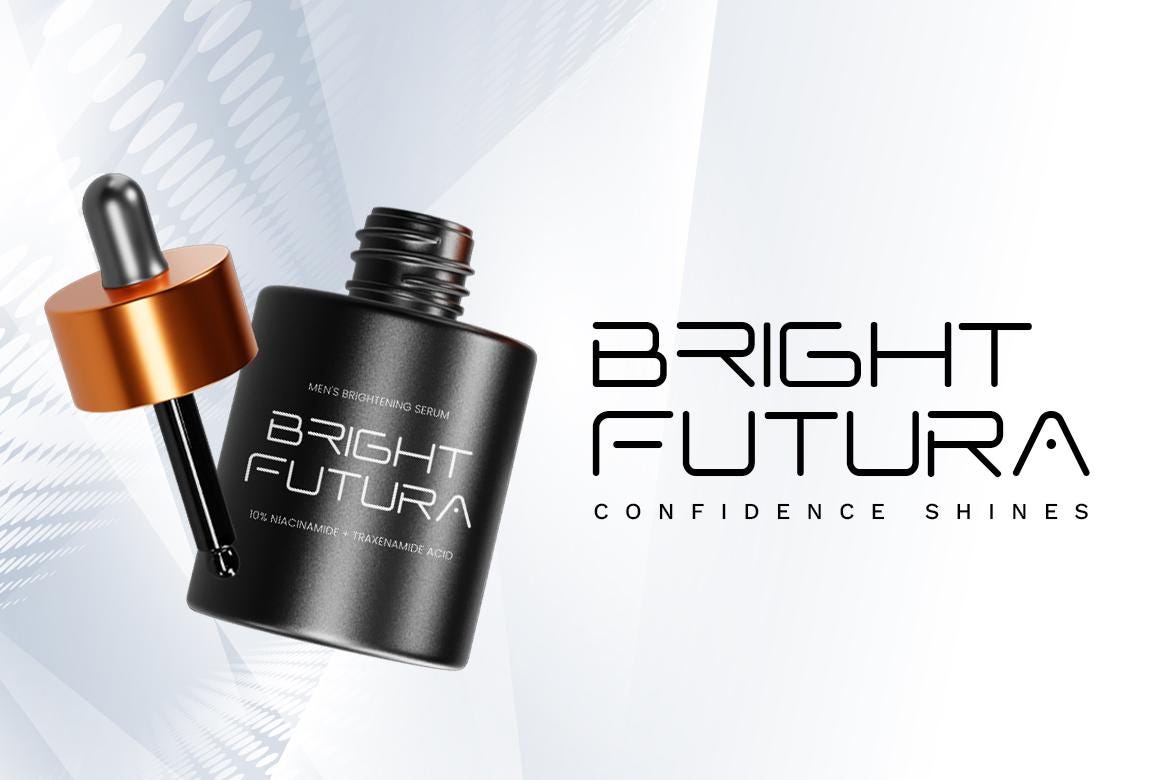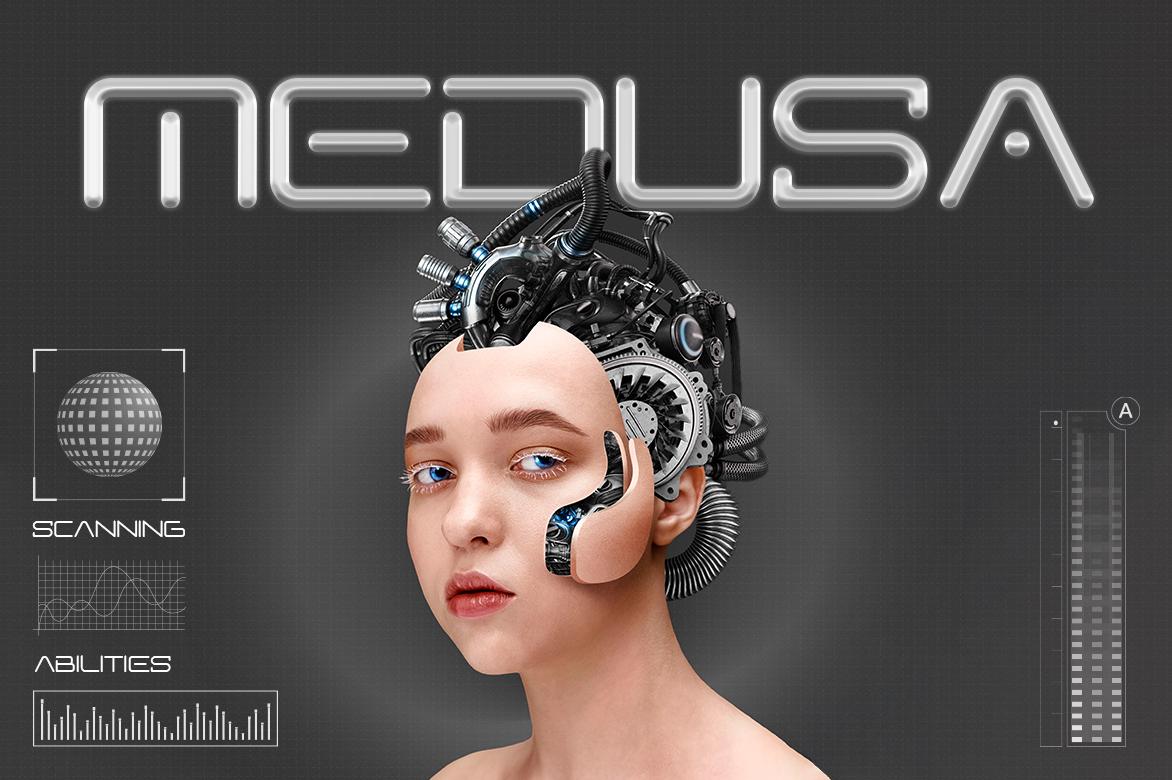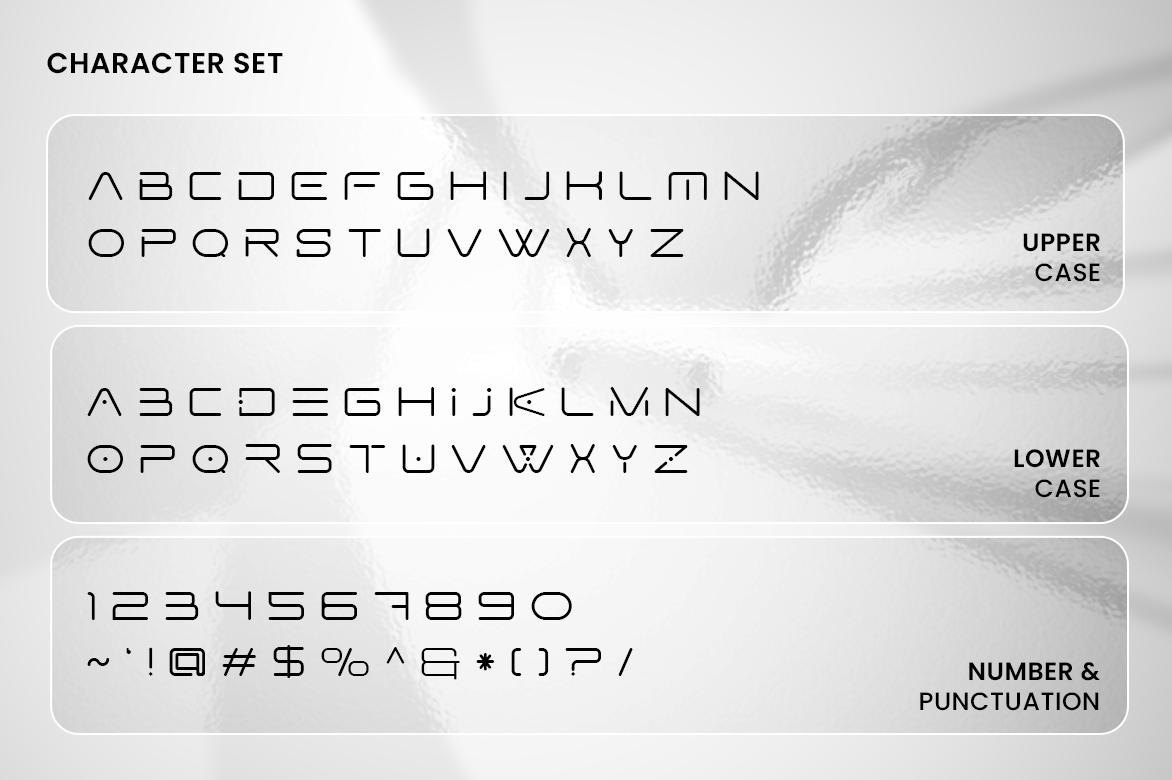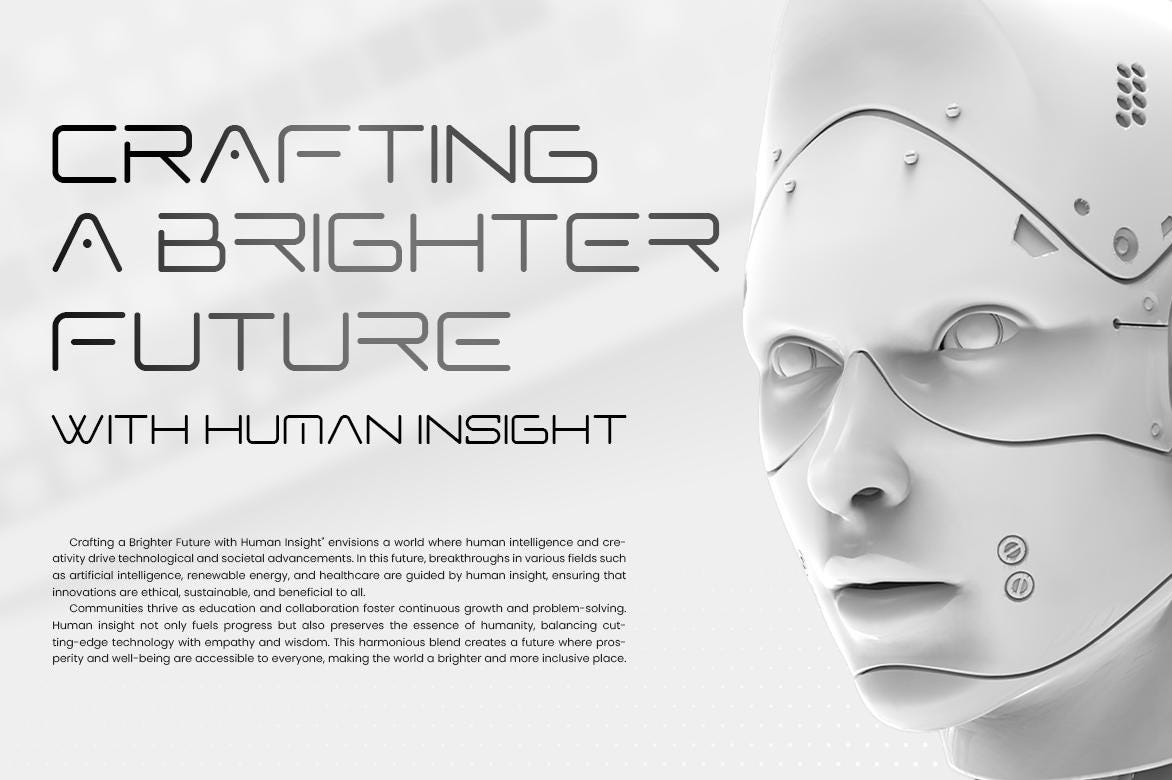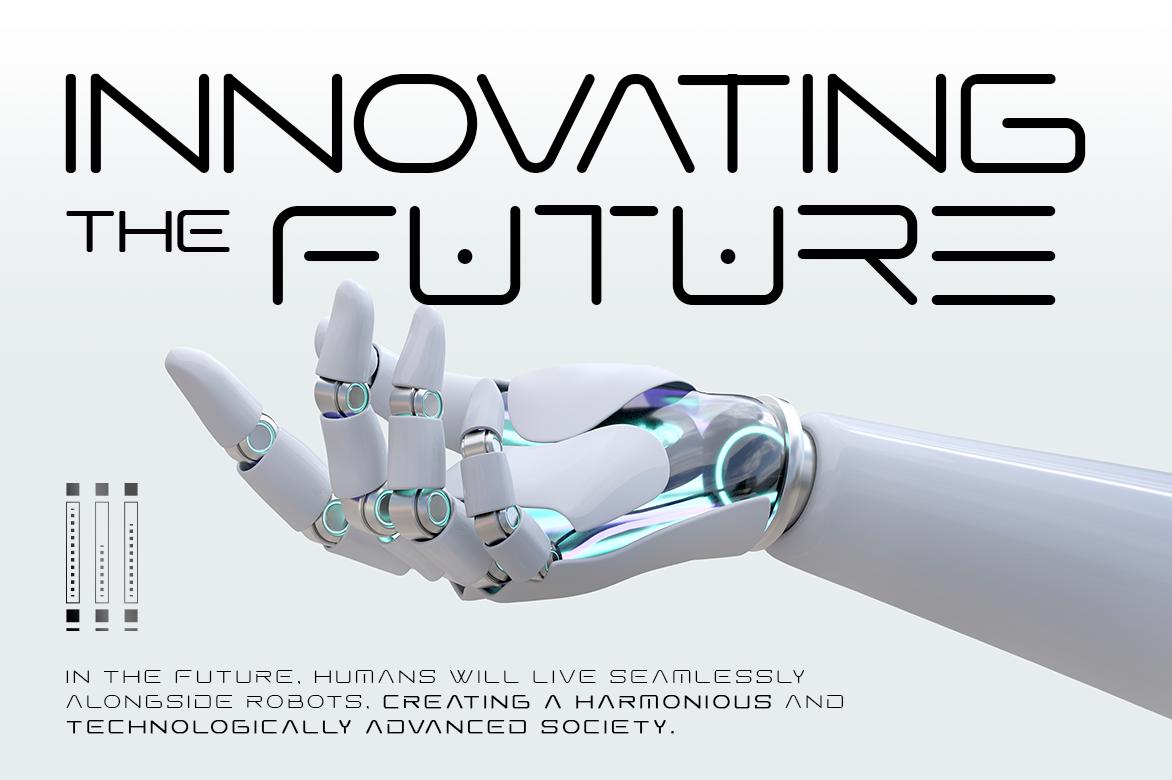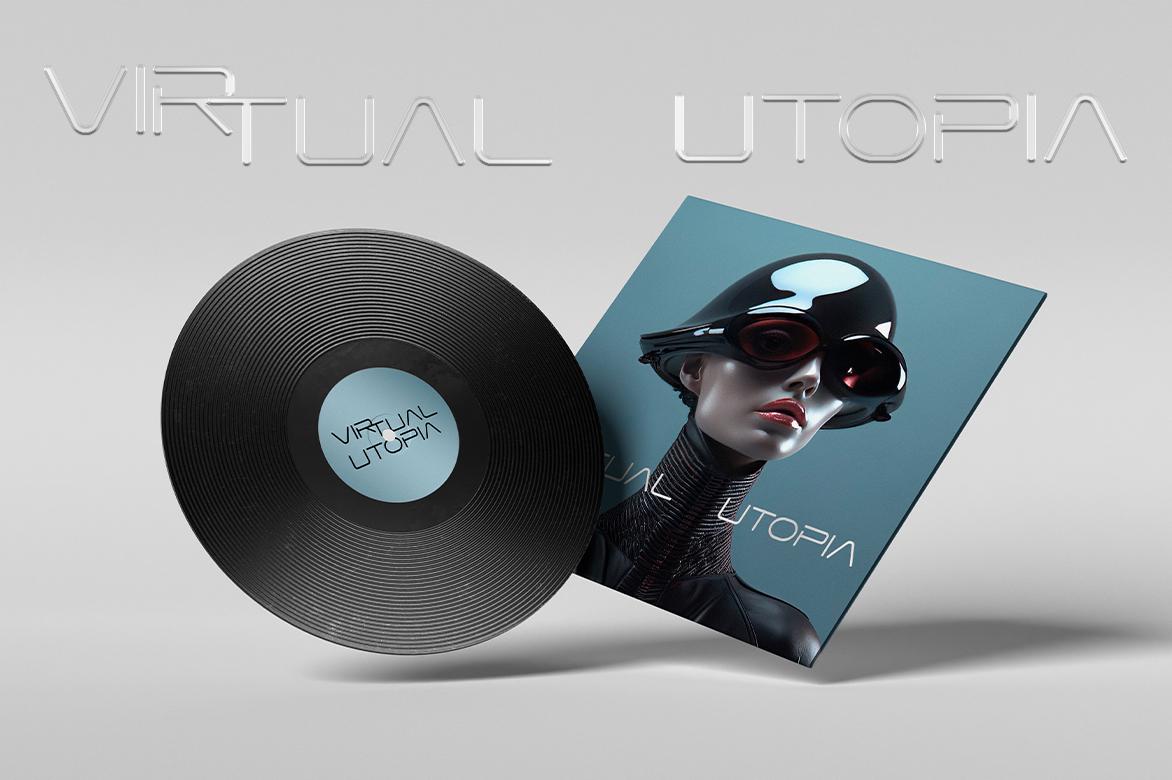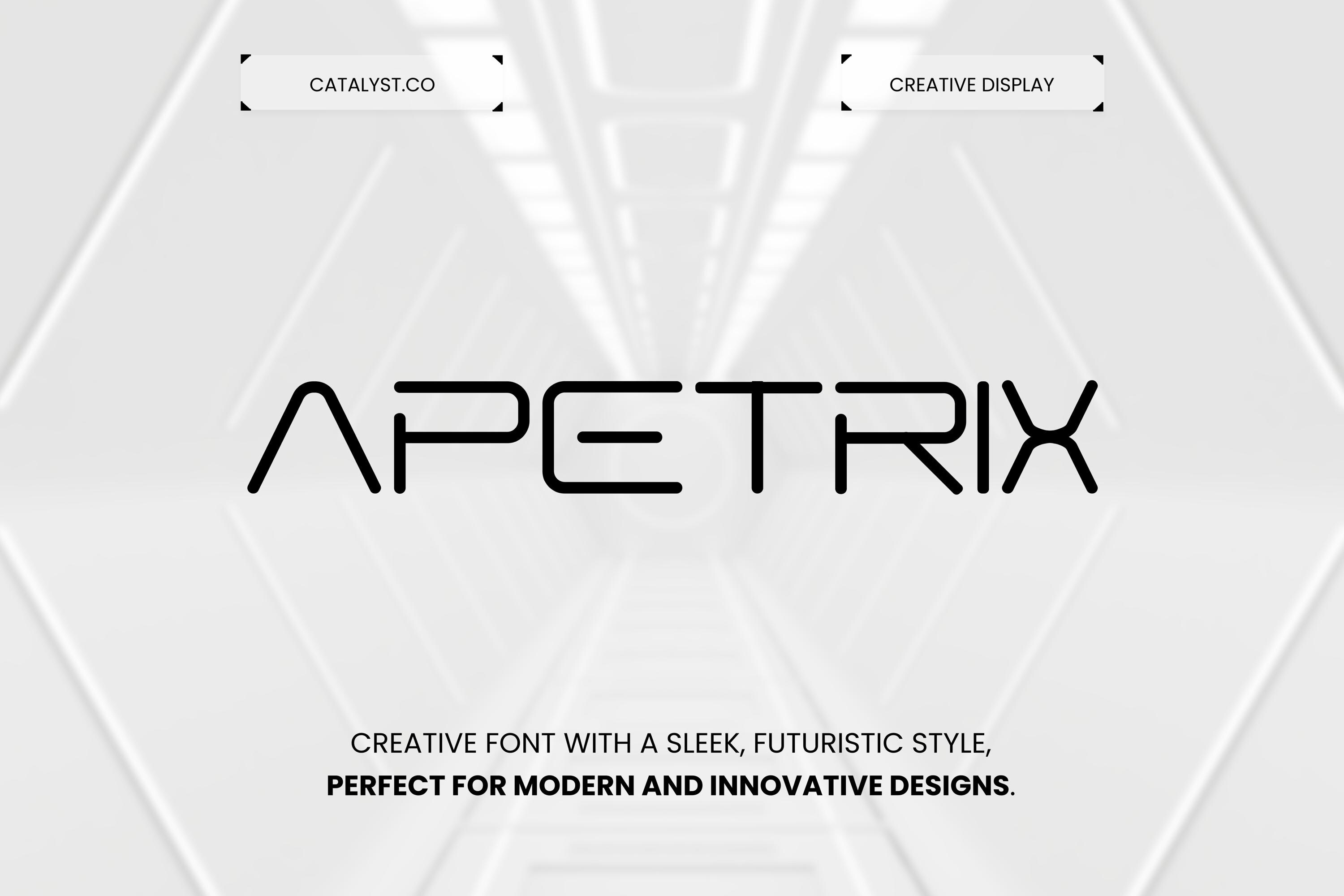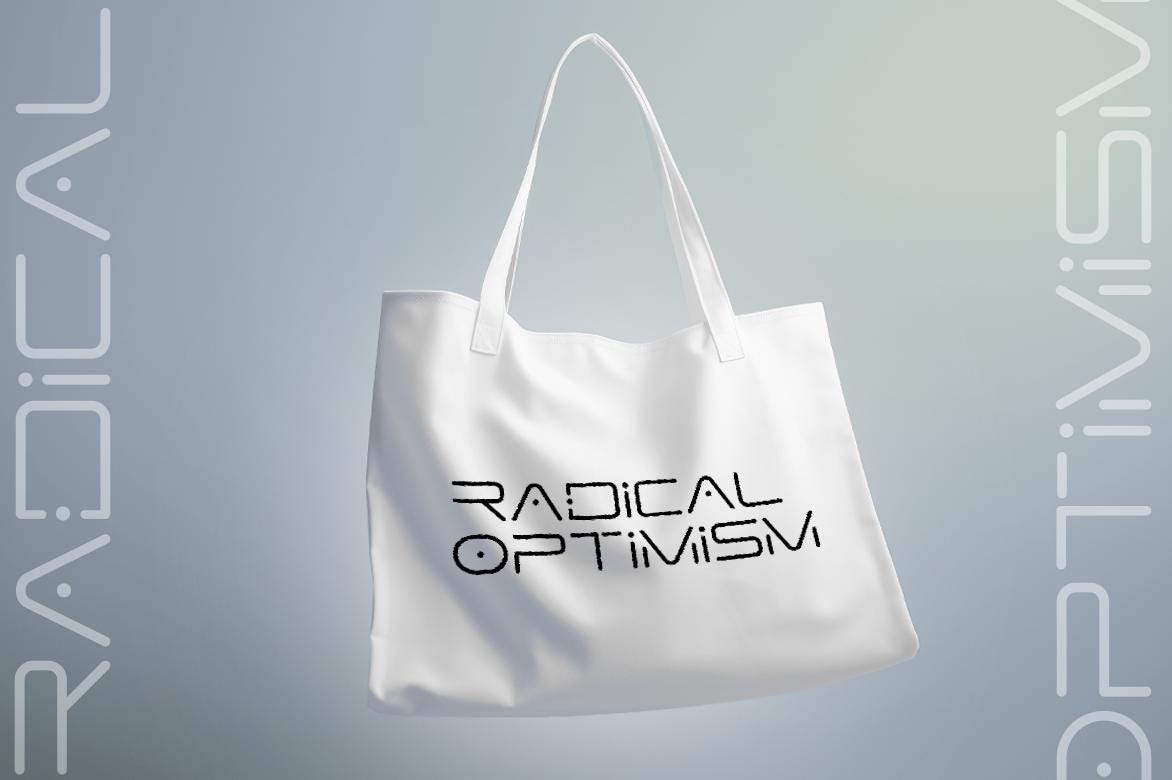
Introducing our new "Apetrix" Modern Font, boasting an Elegant Style, perfect for branding, logos, master heads, and myriad other applications.
• Sleek and modern sans serif design
• Perfect for branding, logos, and web design
• Elegant and minimalist style for professional projects
• Versatile typeface suitable for both print and digital use
• Includes multiple font weights for design flexibility
Features :
- Multilingual
- Uppercase alphabet A-Z
- Lowercase alphabet a-z
- Alternate Character
- Numbers 0-9
- Some punctuation
📌 Where to Use Apetrix Prime Font?
1️⃣ Tech Branding & Logo Design – Elevate your identity with a futuristic touch
2️⃣ Gaming UI & Titles – Perfect for esports, sci-fi, and digital entertainment
3️⃣ Luxury Digital Products – Bring sophistication to high-end tech projects
4️⃣ Web & App Interfaces – Clean and modern typography for seamless user experience
5️⃣ Movie Posters & Sci-Fi Artwork – Ideal for futuristic & space-themed visuals